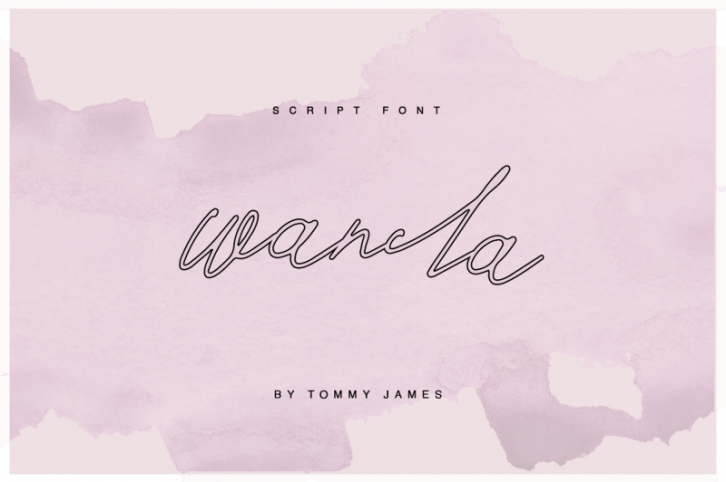
Wanda  - a new fresh handmade calligraphy font.
Very suitable for greeting cards, branding materials, business cards, quotes, posters, and more!This font are perfect for wedding postcard. Or you can create perfect and unique design of your logo, blog, stationery, marketing, magazines and more :)